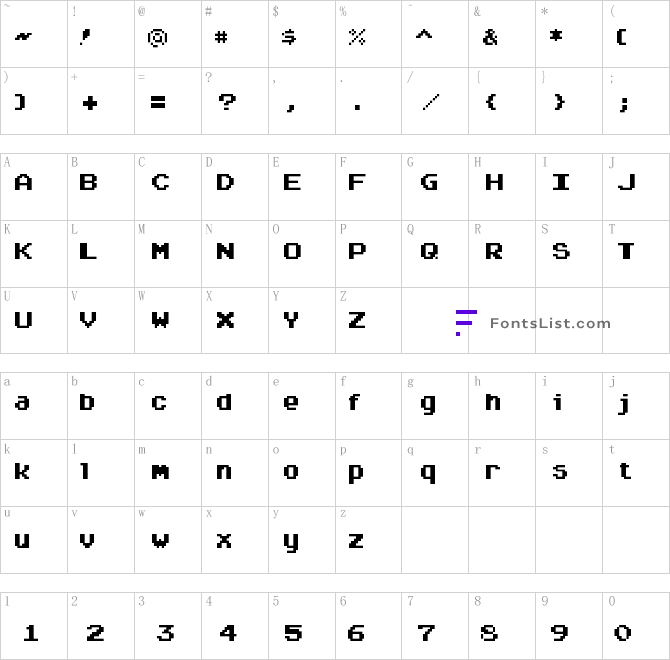
- Font Name:Arcadepix Plus
- Full Name:Arcadepix Plus Regular
Arcadepix-Plus-Regular.ttf is a very beautiful artistic font, Arcadepix-Plus-Regular.ttf is widely used in the design and printing of various books and pictures,Arcadepix-Plus-Regular.ttf has a strong visual impact,Arcadepix-Plus-Regular.ttf is a commonly used font in newspapers, magazines and books, and is used in posters, e-commerce Poster design, store design, logo design, font design and other fields.Arcadepix-Plus-Regular.